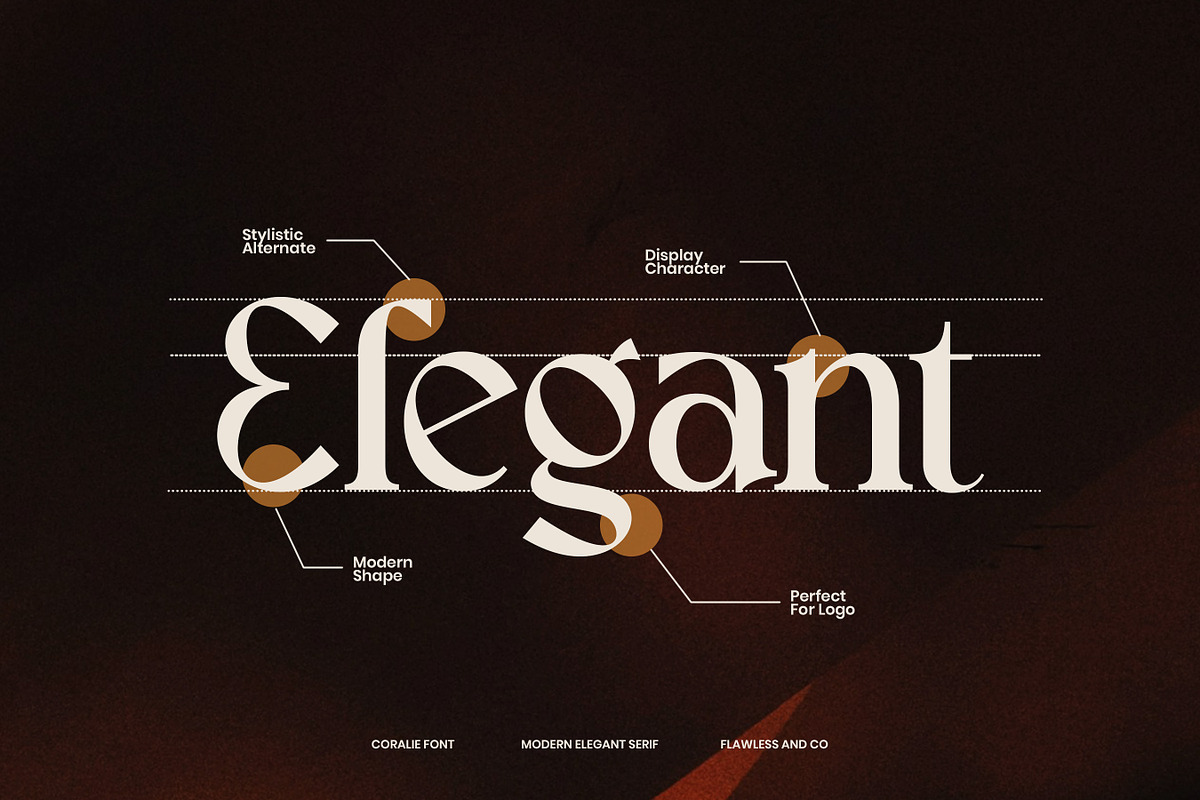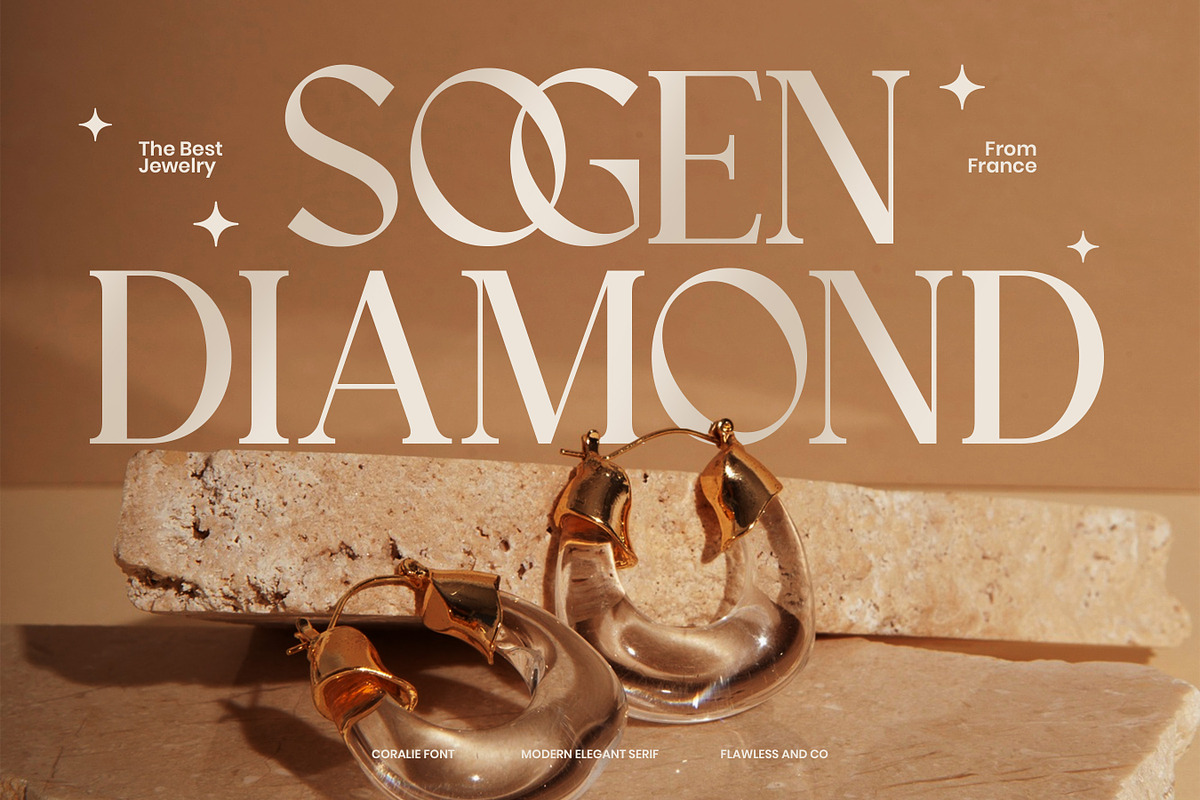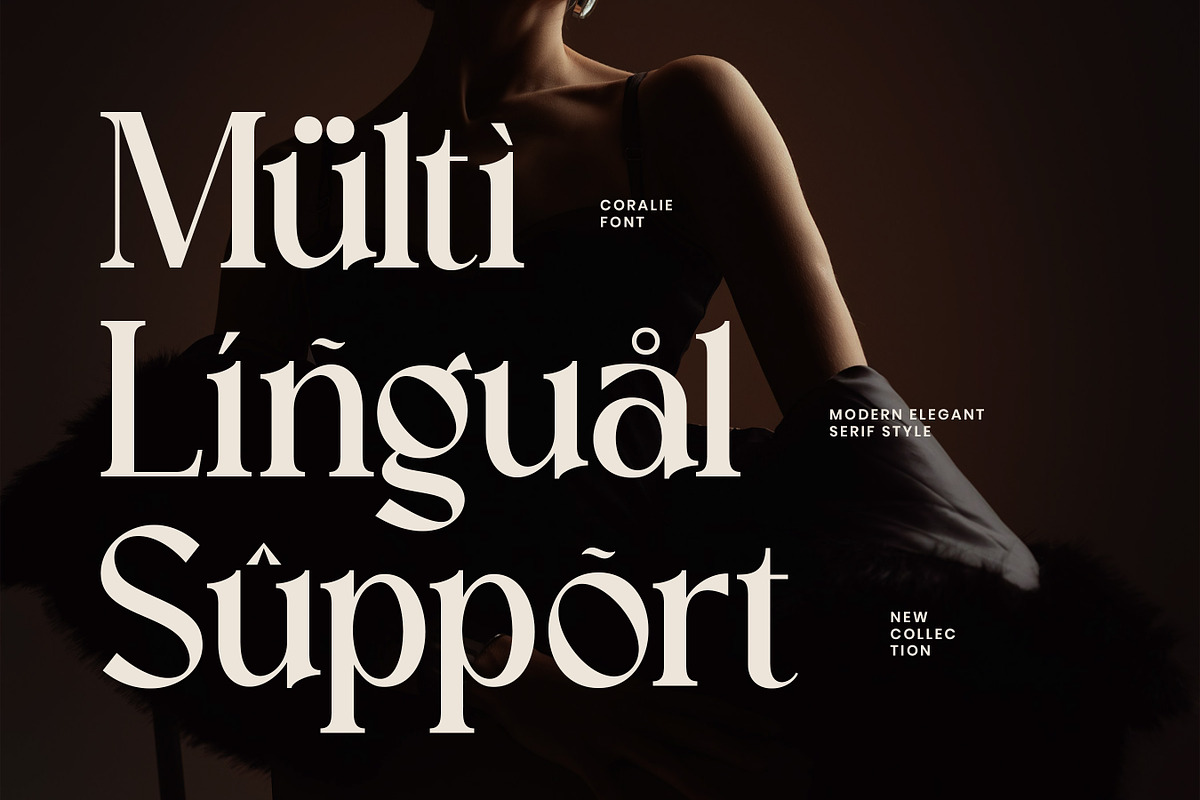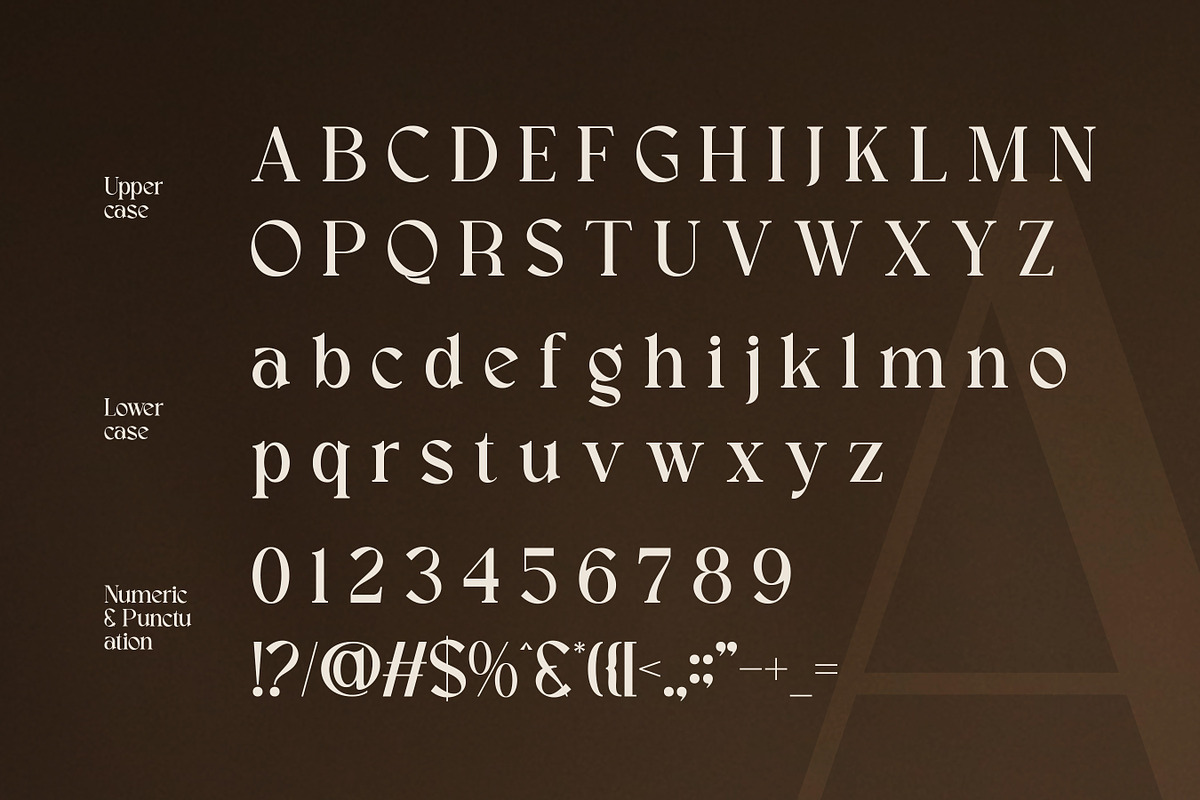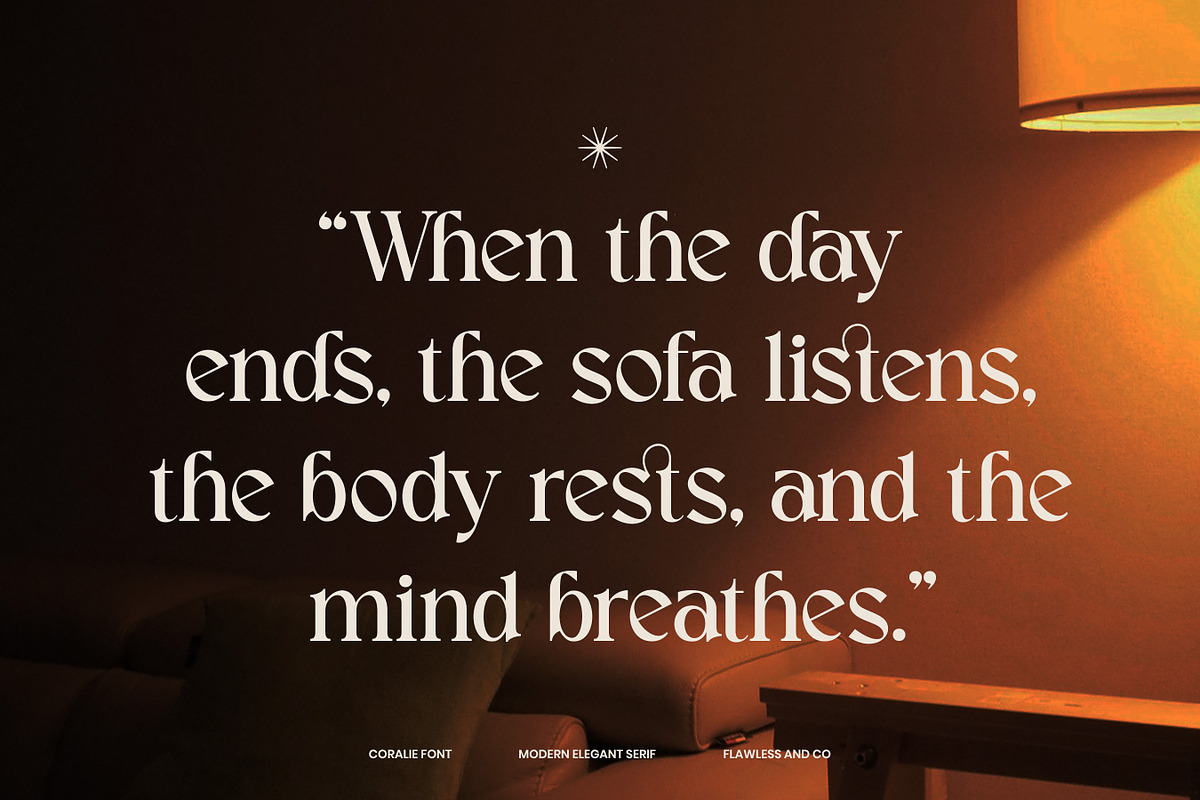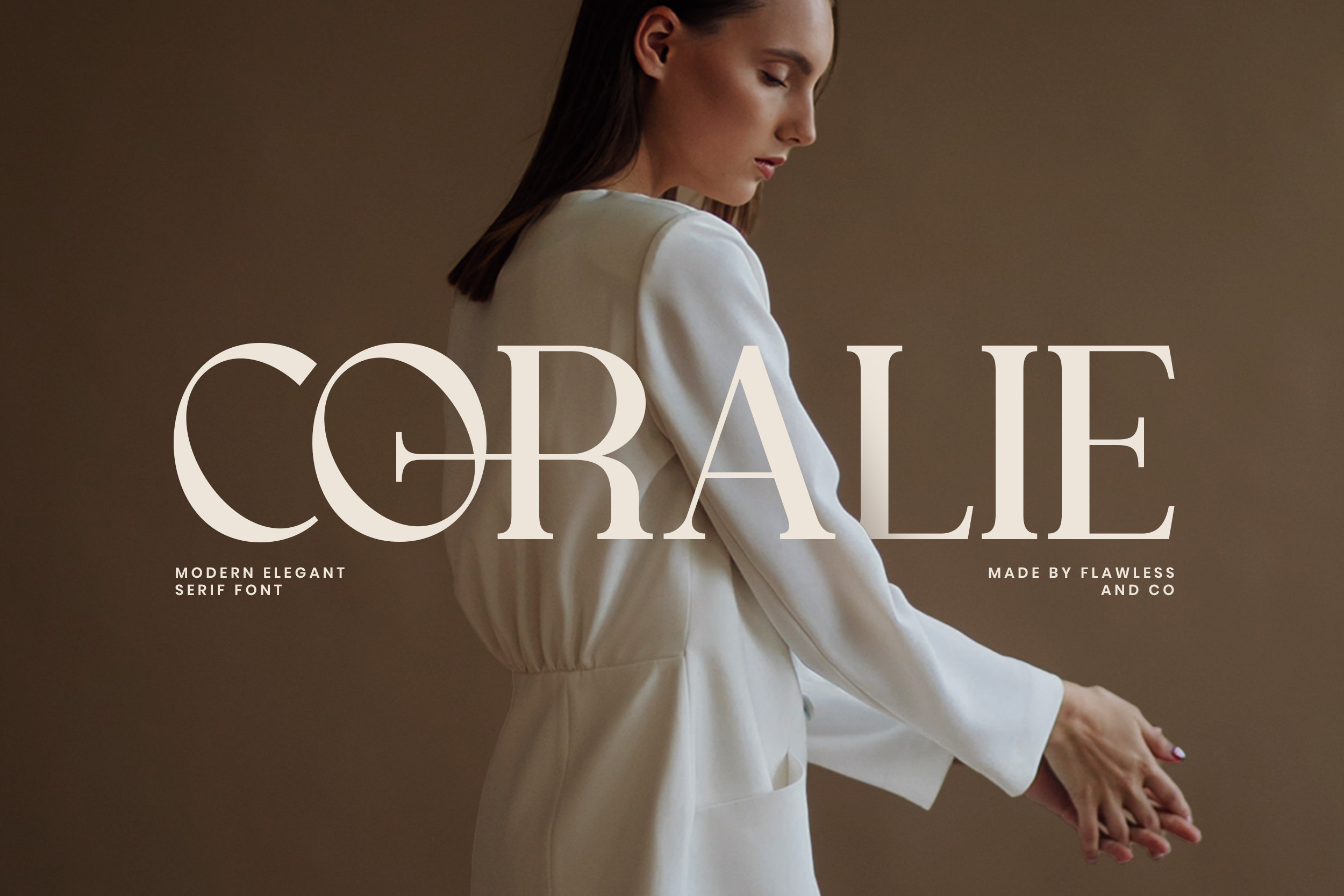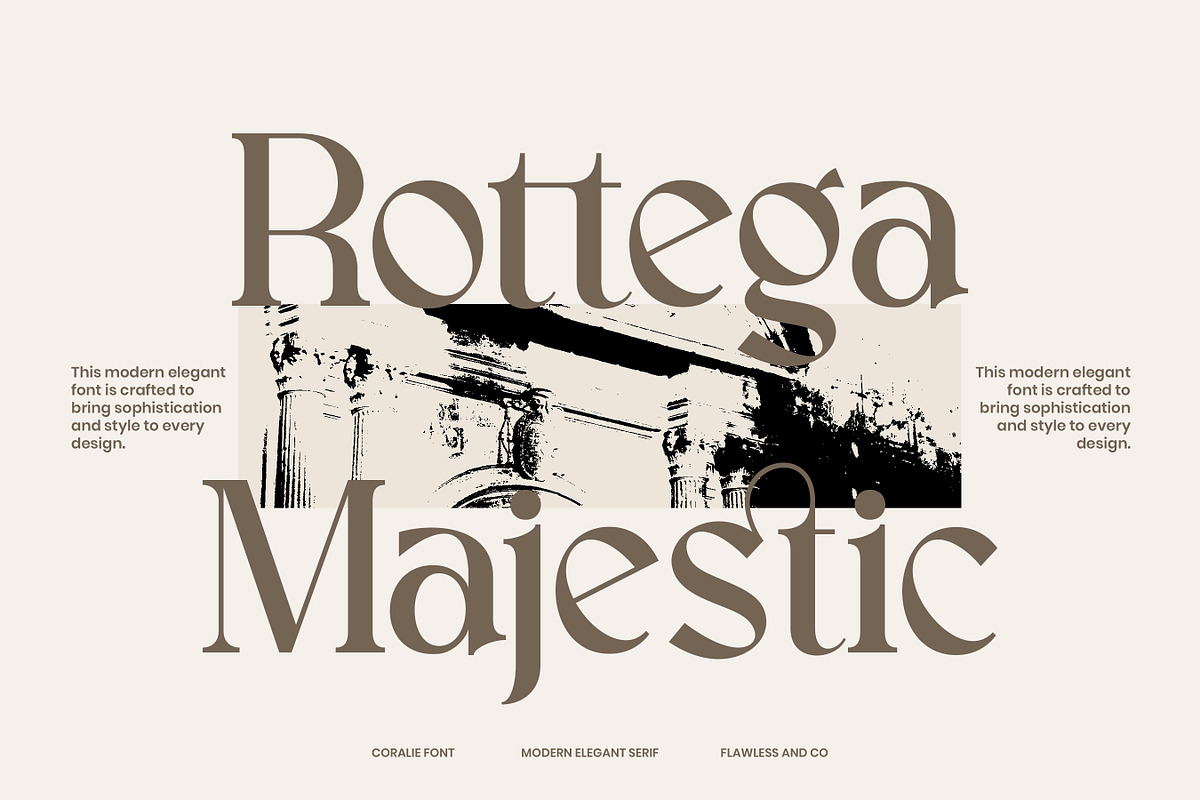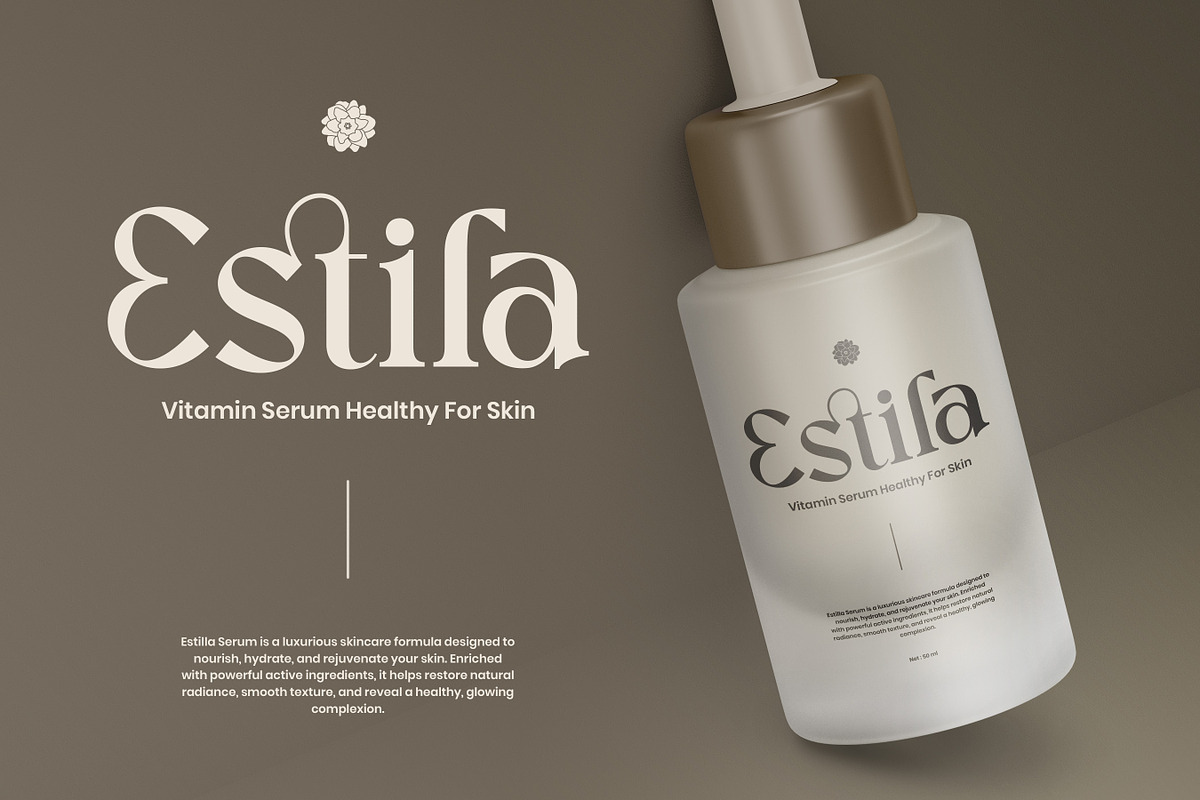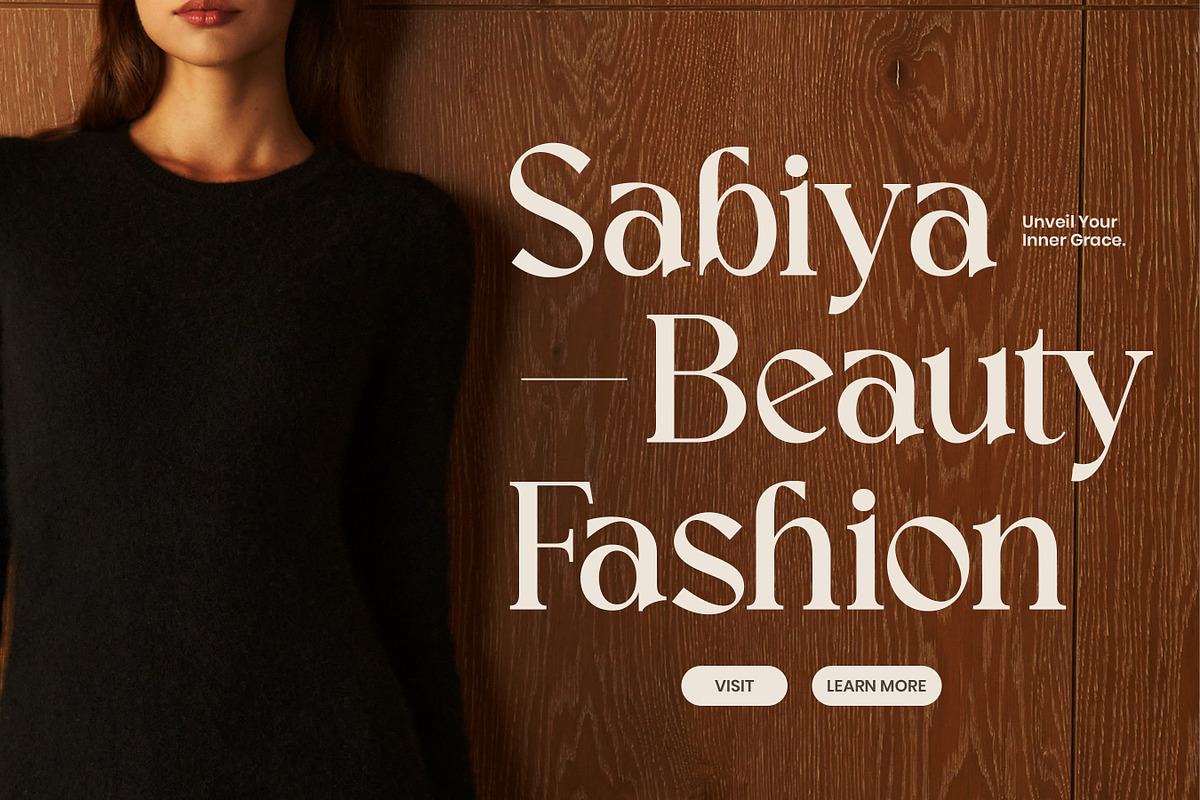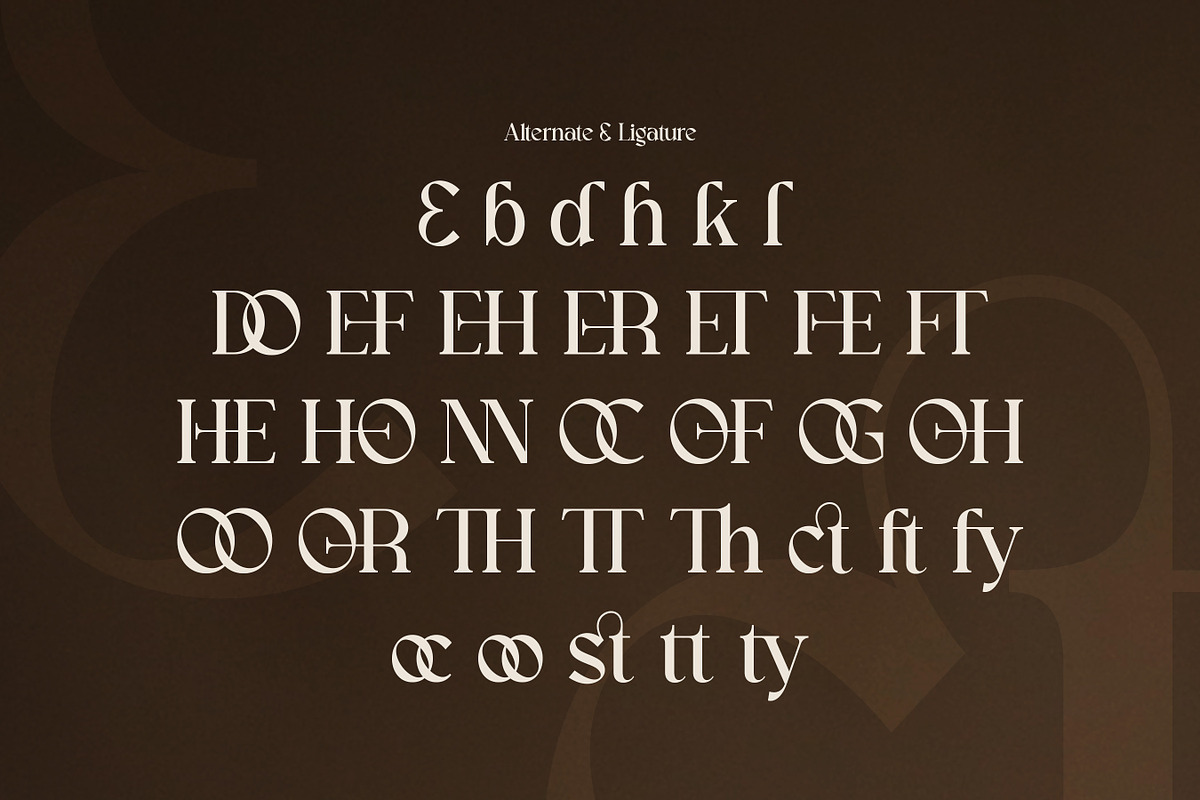
Coralie - Modern Elegant Serif Font
Coralie is a modern elegant serif font that embodies sophistication and grace in every curve. Designed to bring timeless beauty and contemporary flair together, Coralie exudes confidence and refinement — making it the perfect choice for luxury branding, editorial designs, fashion projects, and stylish product packaging. With its clean letterforms, unique ligatures, and smooth contrast between thick and thin strokes, Coralie adds a touch of elegance and modern professionalism to any visual identity. Whether used for logos, magazines, invitations, or social media designs, Coralie enhances your project with a sense of class and femininity.
Who Should Use Coralie?
Coralie is made for designers, brands, and creatives who want to express elegance and sophistication through timeless typography. Whether you’re working on luxury branding or modern editorial layouts, Coralie brings a refined touch that enhances visual harmony and style.
This font is ideal for:
- Fashion designers and luxury brands seeking a classy, editorial look
- Creatives crafting modern brand identities or high-end logos
- Editorial designers working on magazines, book covers, and articles
- Wedding and event designers looking for a romantic yet professional typeface
- Social media creators who want elegant and polished visuals
A Must-Have Font for "Brand and Logo" Creators and Designers
Coralie is a must-have choice for creatives who value timeless elegance and professional aesthetics. With its refined serif structure and graceful letterforms, this font brings a perfect balance between modern sophistication and classic charm. It’s the kind of typeface that instantly elevates branding and logo projects, making every design look luxurious, confident, and beautifully crafted.
Why Choose Coralie for "Brand and Logo" Projects?
Coralie is more than just a serif font — it’s a statement of elegance and creativity. Designed with refined details and smooth curves, Coralie gives every brand identity a luxurious and sophisticated feel. Its balanced proportions make it ideal for creating timeless logos, high-end packaging, and editorial layouts that exude professionalism. Whether you’re working on modern fashion branding, boutique logos, or stylish product design, Coralie offers the perfect harmony between beauty and readability. It’s the font that transforms simple words into stunning visual identities — making every project look polished, elegant, and unforgettable.
Suitable For:
- Brand identity and logo design
- Luxury fashion and beauty branding
- Editorial, magazine, and book layouts
- Product packaging and label design
- Wedding invitations and stationery
- Social media templates and marketing visuals
- Website headers and boutique promotions